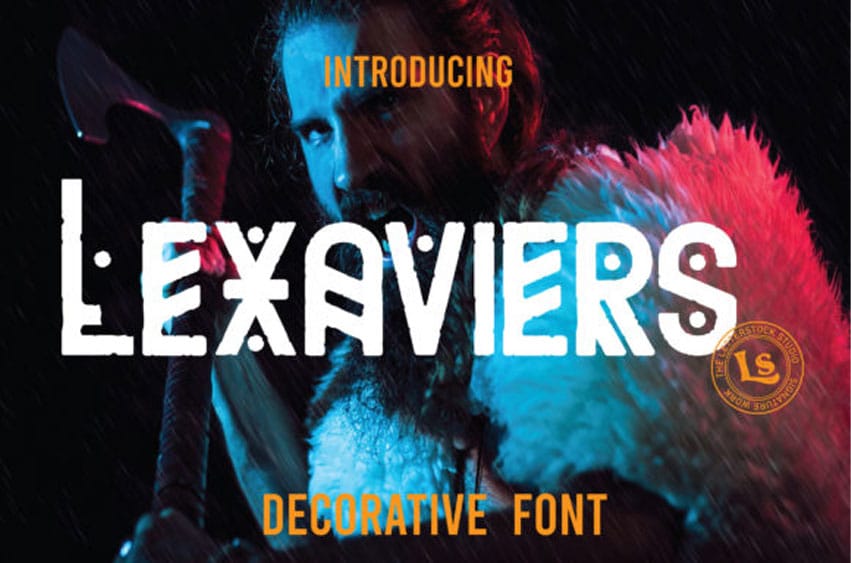
Lexaviers Font is a cool and futuristic brushed display font.
This font is ideal for writing web designs, business cards, or pretty much anything else that requires a unique touch.